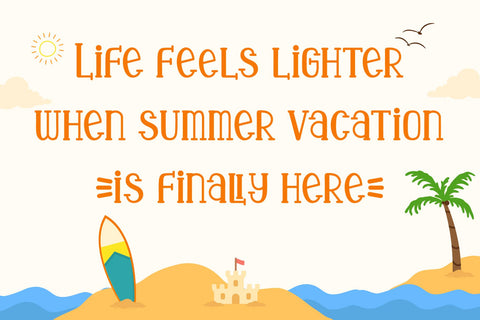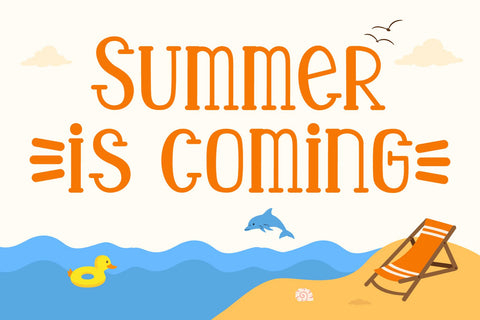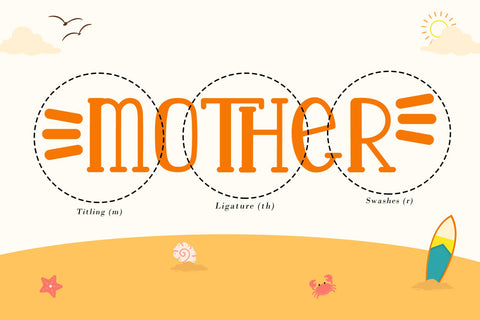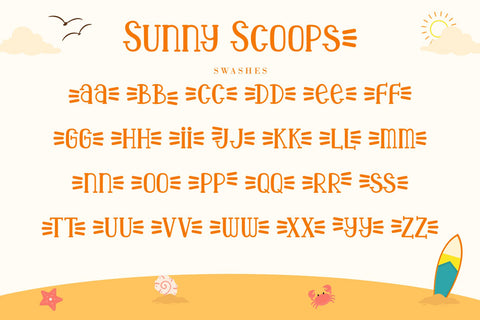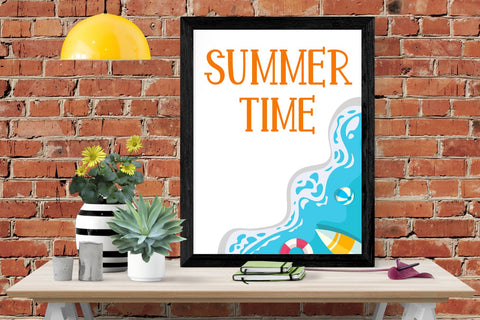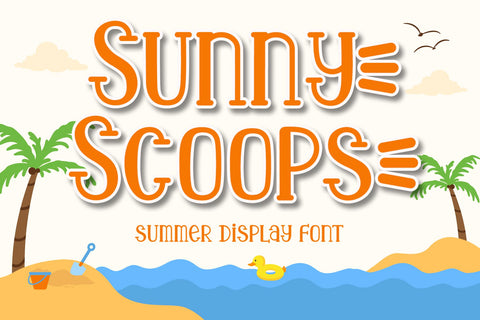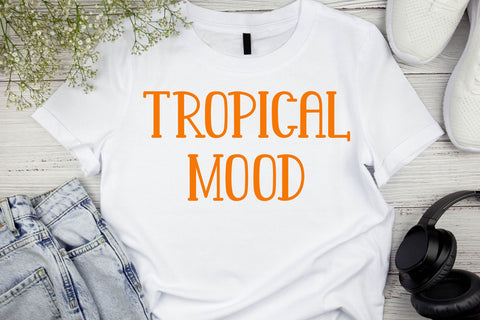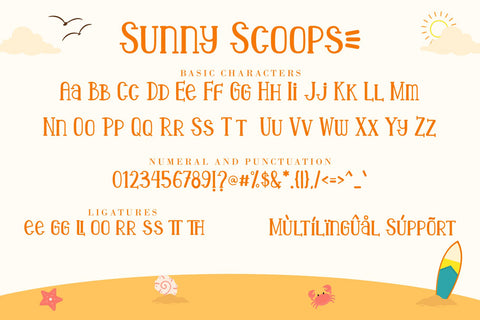
Sunny Scoops - Summer Display Font
Celebrate bright days and sweet moments with Sunny Scoops, a fun-loving display font filled with summer charm. The tall and playful letterforms create a unique visual rhythm that instantly adds energy and character to any design. Every letter is crafted with a handmade feel, giving projects a warm and inviting appearance.
Sunny Scoops is ideal for invitations, stickers, merchandise, product labels, scrapbook layouts, children’s activities, and digital content. The font’s unique style helps titles stand out while creating a friendly and approachable mood. Its whimsical details make it especially suitable for projects that celebrate happiness, creativity, and colorful storytelling.
Summer Pineapple Features :
- (a-z) titling, (a-z) swashes, ligatures
- Support multilingual; ä ö ü Ä Ö Ü ß ¿ ¡